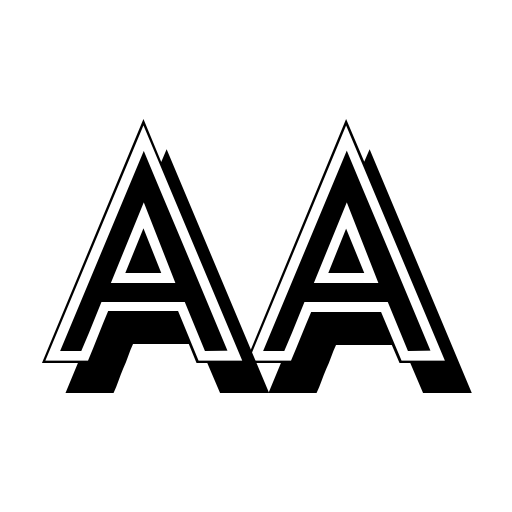
Bayadera is a bold, condensed sans serif font featuring strong geometric shapes and a striking 3D shadow effect that adds depth and visual interest. Its uppercase letterforms have a playful yet sturdy character, making it perfect for eye-catching headlines, logos, and posters where a retro or vintage vibe is desired. This font works well in design projects seeking a unique, dynamic style that stands out with charm and confidence.
Bayadera Font
About Bayadera Font
| Font family | Bayadera Font |